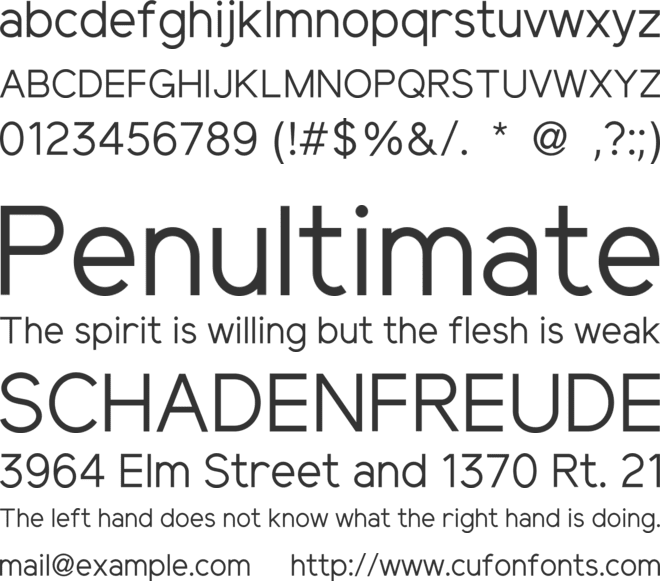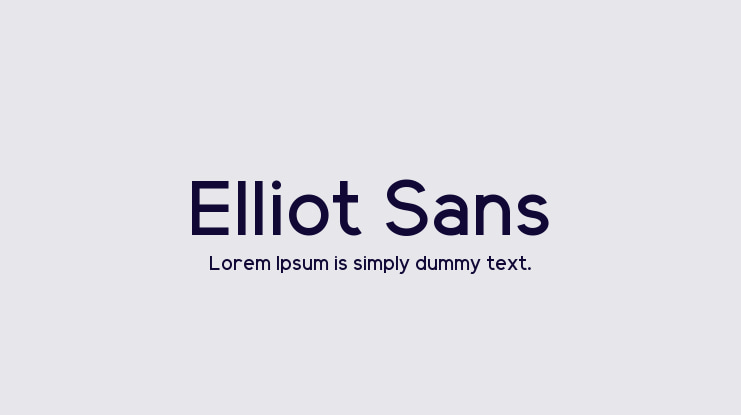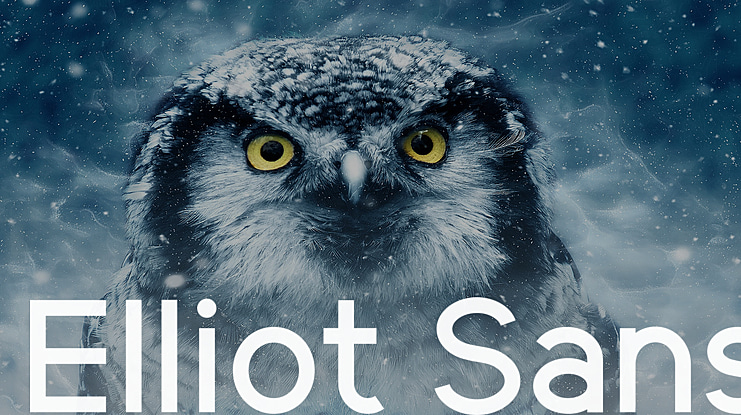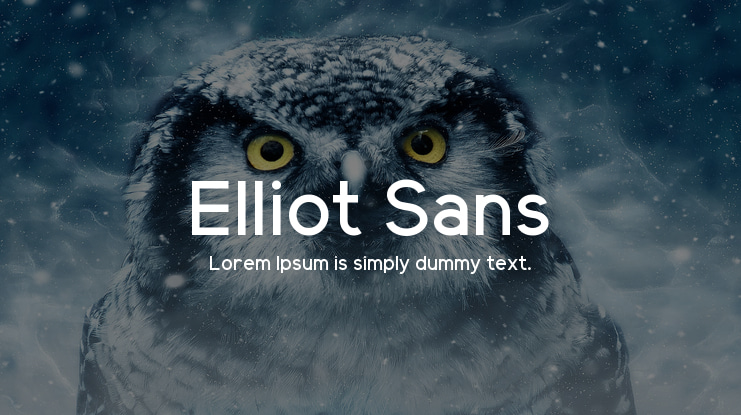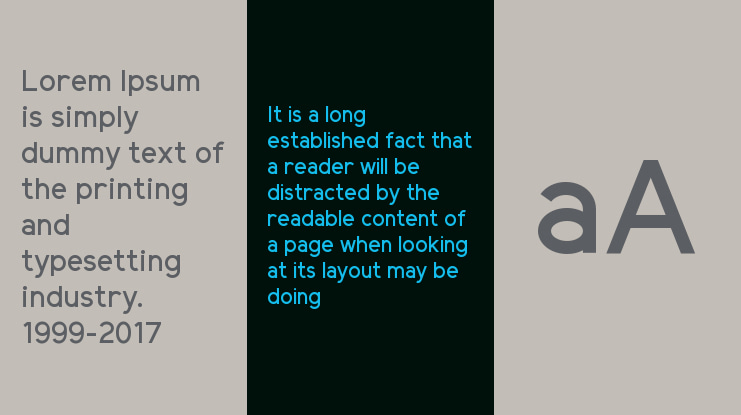
Elliot Sans Font Family
Elliot Sans is a modern and simplistic typeface designed for versatility and readability. The font family has 8 weights (light, regular, medium, bold + italics for each) and includes all numbers and punctuations.
I put a lot of time in creating a cohesive alphabet set and obsessed over the kerning details. I hope you enjoy using it as much as I enjoyed creating it.